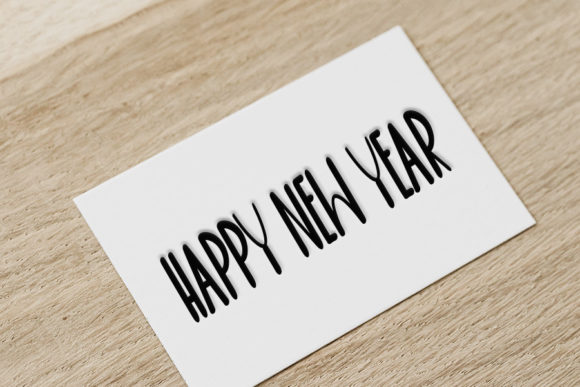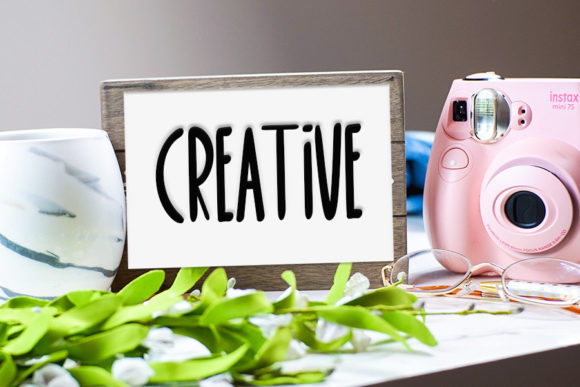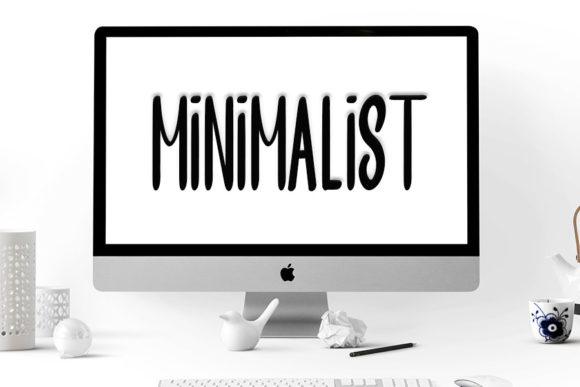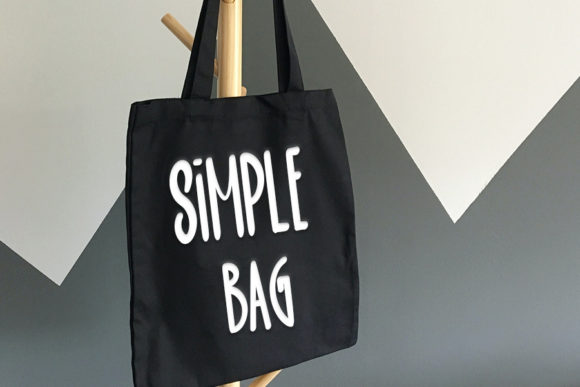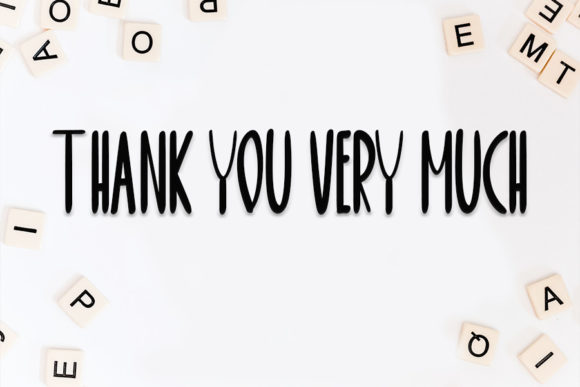
Christmas Market Font: A Playful and Smart-Looking Handwritten Font for Your Holiday Designs
The holiday season is upon us, and with it comes the opportunity to create festive and fun designs that capture the spirit of Christmas. One of the most important elements of any design is the font, and that’s where Christmas Market Font comes in. This playful and smart-looking handwritten font is the ideal choice for creating eye-catching logos, branding, and quotes that will make your design come alive!
What Makes Christmas Market Font So Special?
Christmas Market Font is a unique and beautiful handwritten font that is perfect for designers and crafters looking to add a touch of holiday cheer to their work. Every letter has a unique and beautiful touch, which will make your design stand out from the crowd. The font is playful, yet sophisticated, making it perfect for a wide range of design applications, from logos and branding to quotes and social media graphics.
Key Features of Christmas Market Font
- Playful and smart-looking: Christmas Market Font has a fun and playful vibe that’s perfect for holiday designs.
- Handwritten: The font has a beautiful, handwritten feel that’s perfect for creating unique and personalized designs.
- Unique and beautiful touch: Every letter has a special touch that makes the font truly one-of-a-kind.
- Ideal for logos, branding, and quotes: Christmas Market Font is perfect for creating eye-catching logos, branding, and quotes that will make your design come alive.
Why Choose Christmas Market Font?
There are many fonts to choose from, but Christmas Market Font stands out from the rest. Here are just a few reasons why:
- Versatility: Christmas Market Font is perfect for a wide range of design applications, from logos and branding to quotes and social media graphics.
- Easy to read: Despite its playful and handwritten feel, Christmas Market Font is easy to read and understand, making it perfect for designs that need to communicate a message.
- Unique and creative: The font’s unique and beautiful touch makes it perfect for designers and crafters looking to create something truly special.
How to Use Christmas Market Font in Your Designs
Christmas Market Font is easy to use and can be incorporated into a wide range of designs. Here are a few ideas to get you started:
- Logos and branding: Use Christmas Market Font to create eye-catching logos and branding that will make your business stand out.
- Quotes and social media graphics: The font is perfect for creating fun and festive quotes and social media graphics that will engage your audience.
- Holiday cards and invitations: Use Christmas Market Font to create beautiful and unique holiday cards and invitations that will impress your friends and family.
Tips and Tricks for Getting the Most Out of Christmas Market Font
Here are a few tips and tricks for getting the most out of Christmas Market Font:
- Experiment with different colors: The font looks great in a wide range of colors, so don’t be afraid to experiment and find the perfect hue for your design.
- Use it with other fonts: Christmas Market Font pairs well with other fonts, so try combining it with a bold or serif font to create a unique and interesting design.
- Play with different sizes: The font looks great in a wide range of sizes, so try experimenting with different sizes to create visual interest and hierarchy in your design.